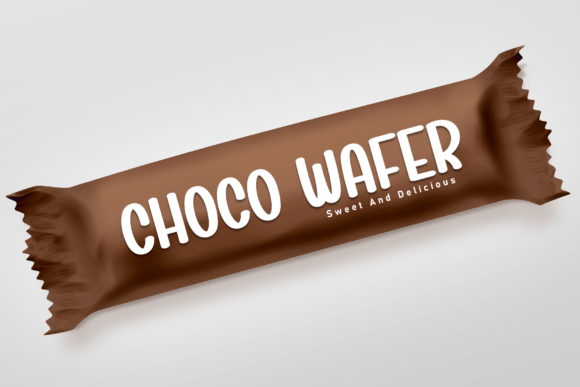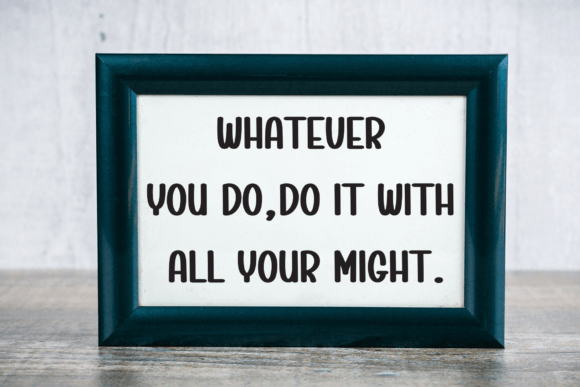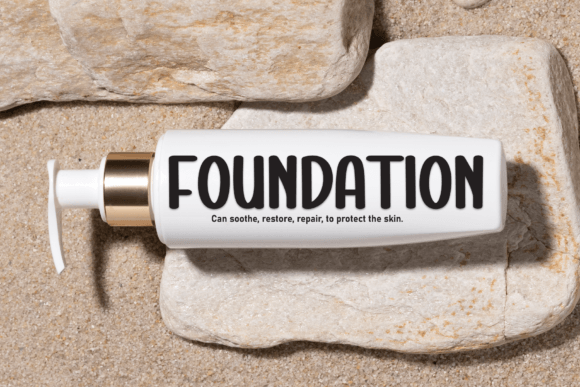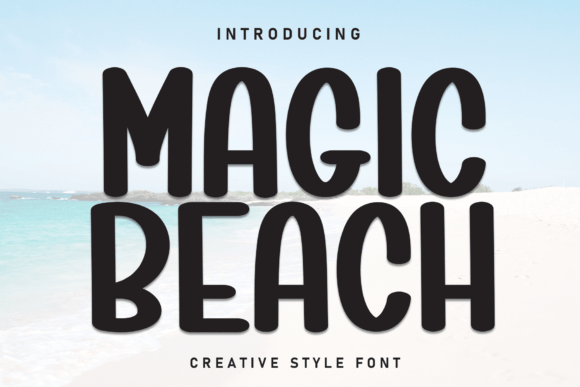
Introduction to Magic Beach Font
Magic Beach is a sweet and friendly handwritten font.
Why Choose Magic Beach Font?
Magic Beach Font offers exceptional quality and versatility, making it a valuable addition to your design toolkit. Whether you’re creating for personal projects or commercial use, Magic Beach Font delivers professional results.